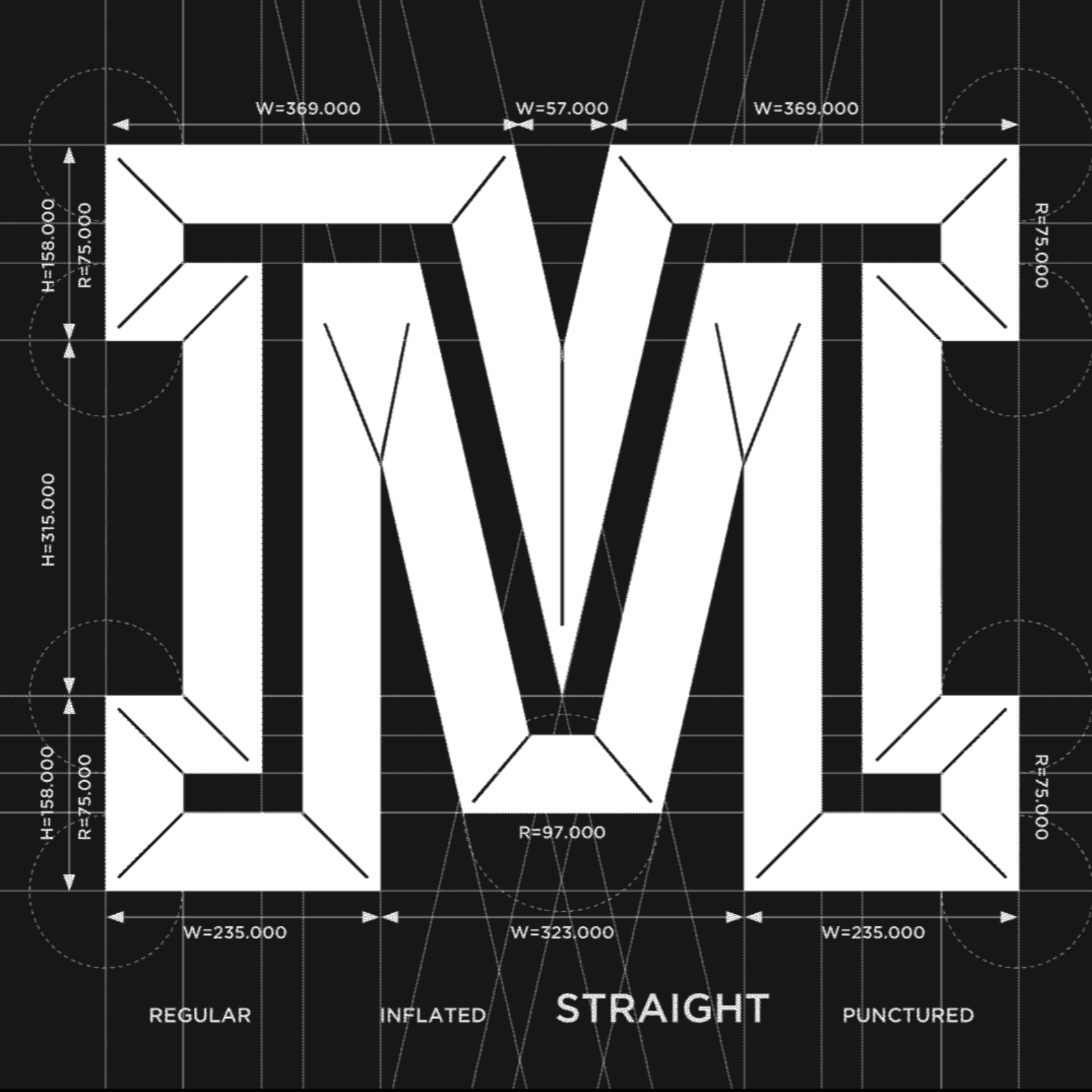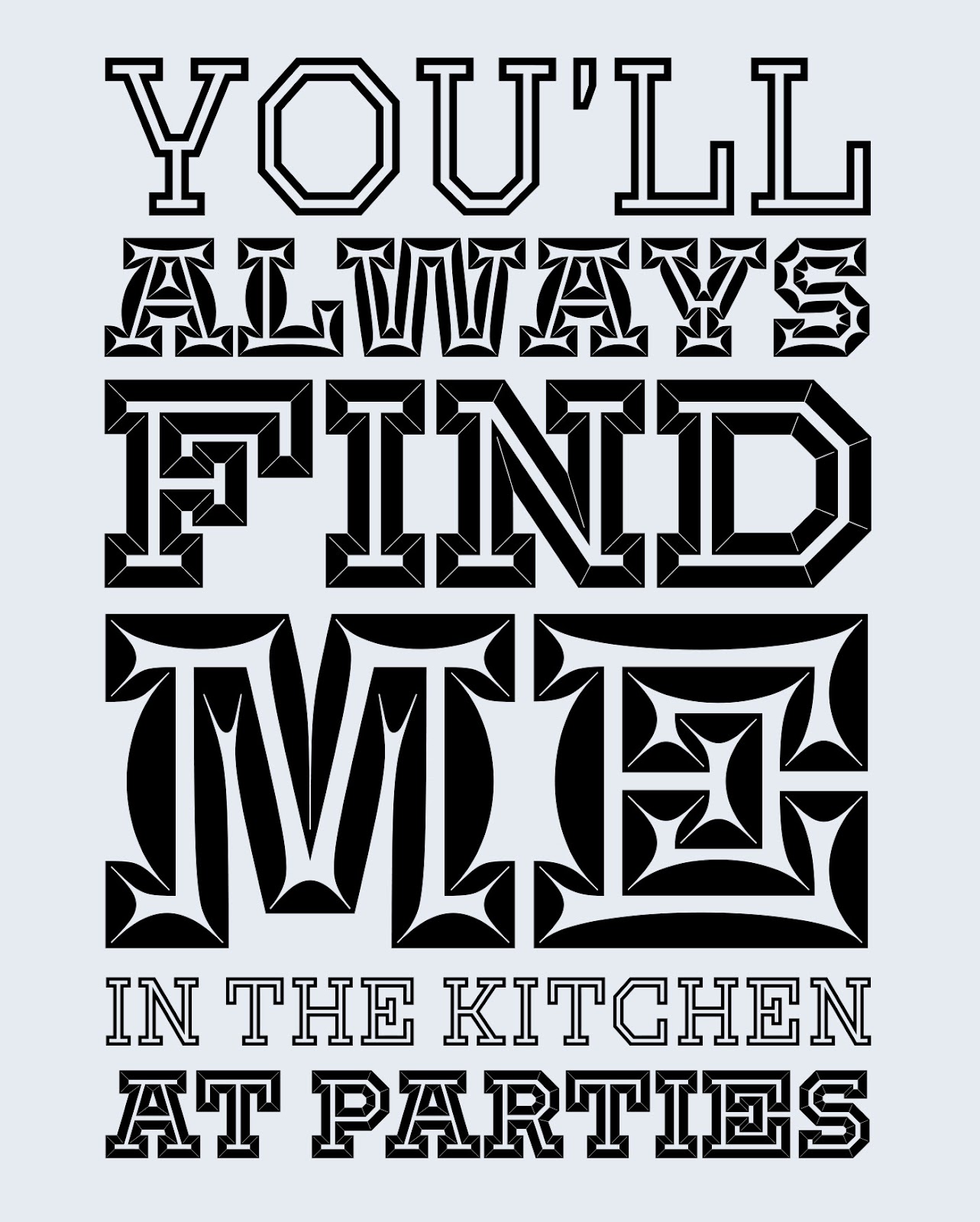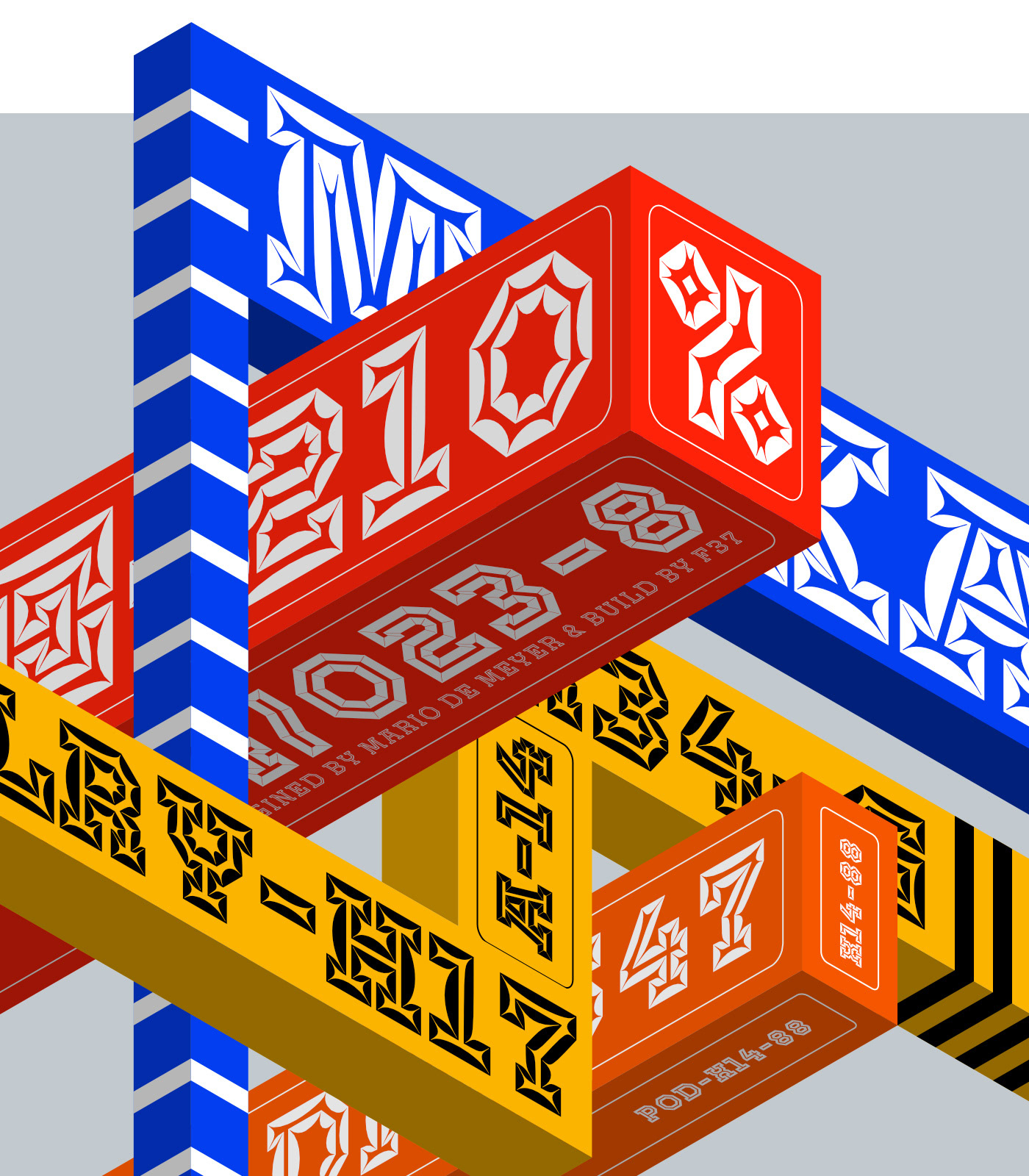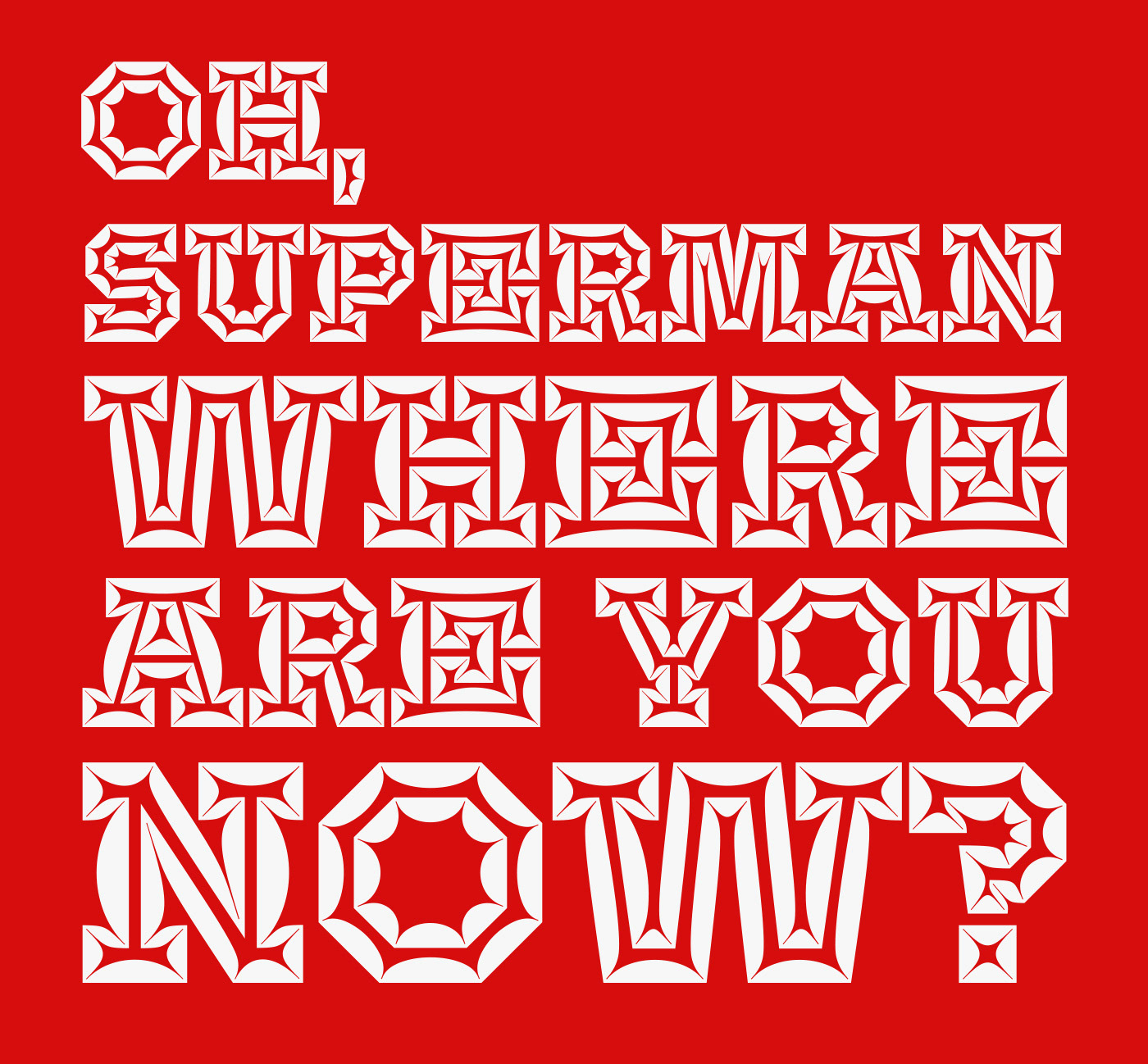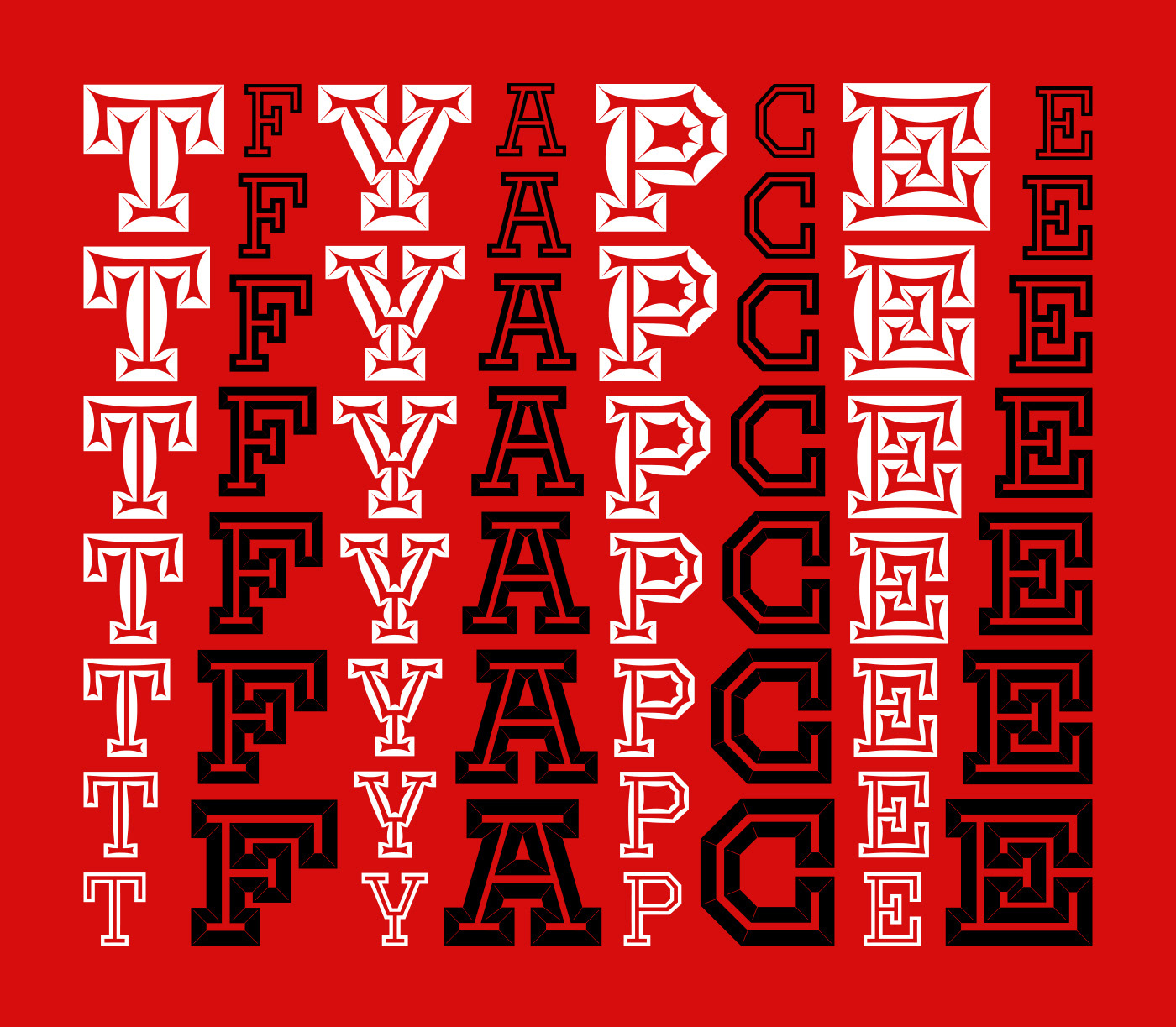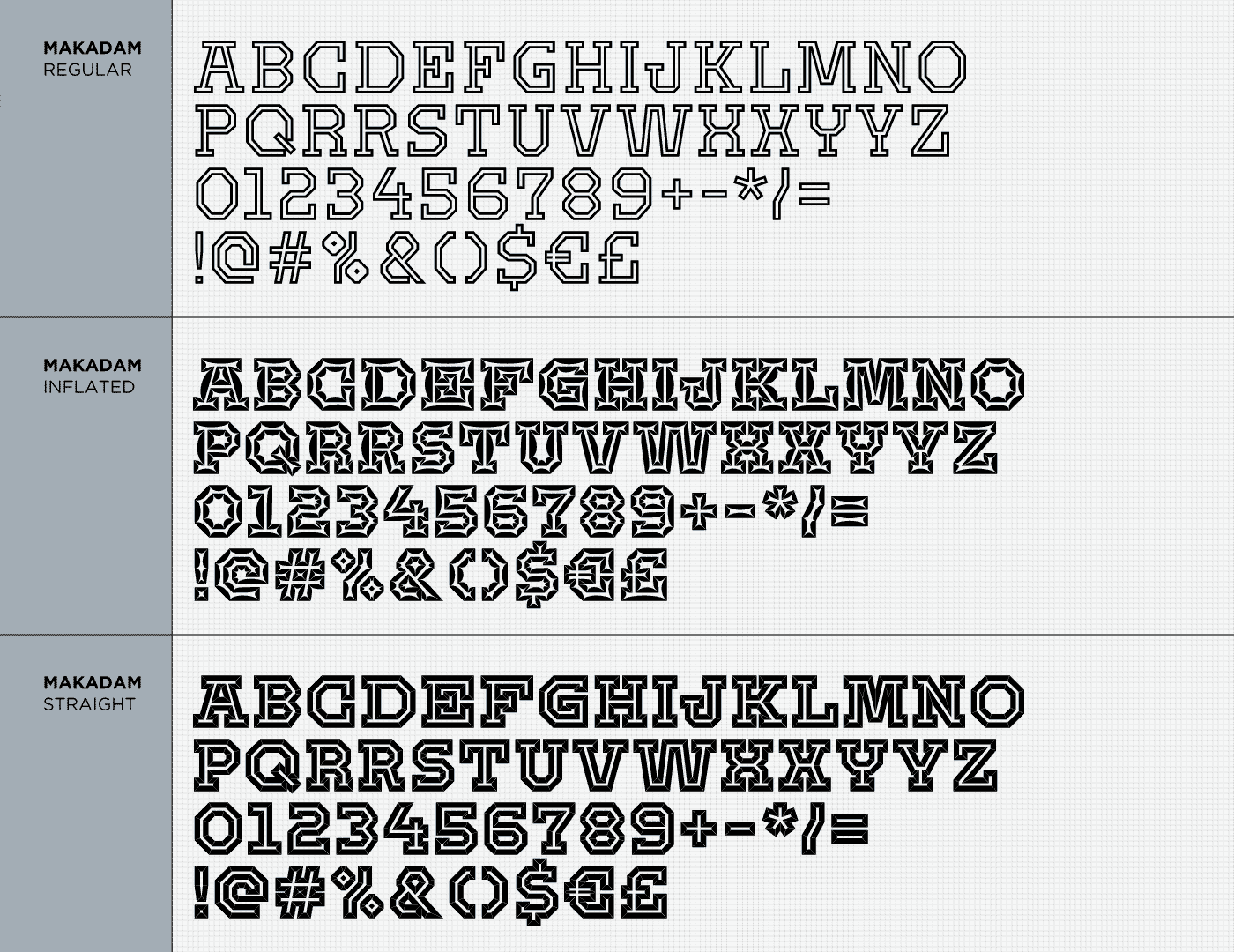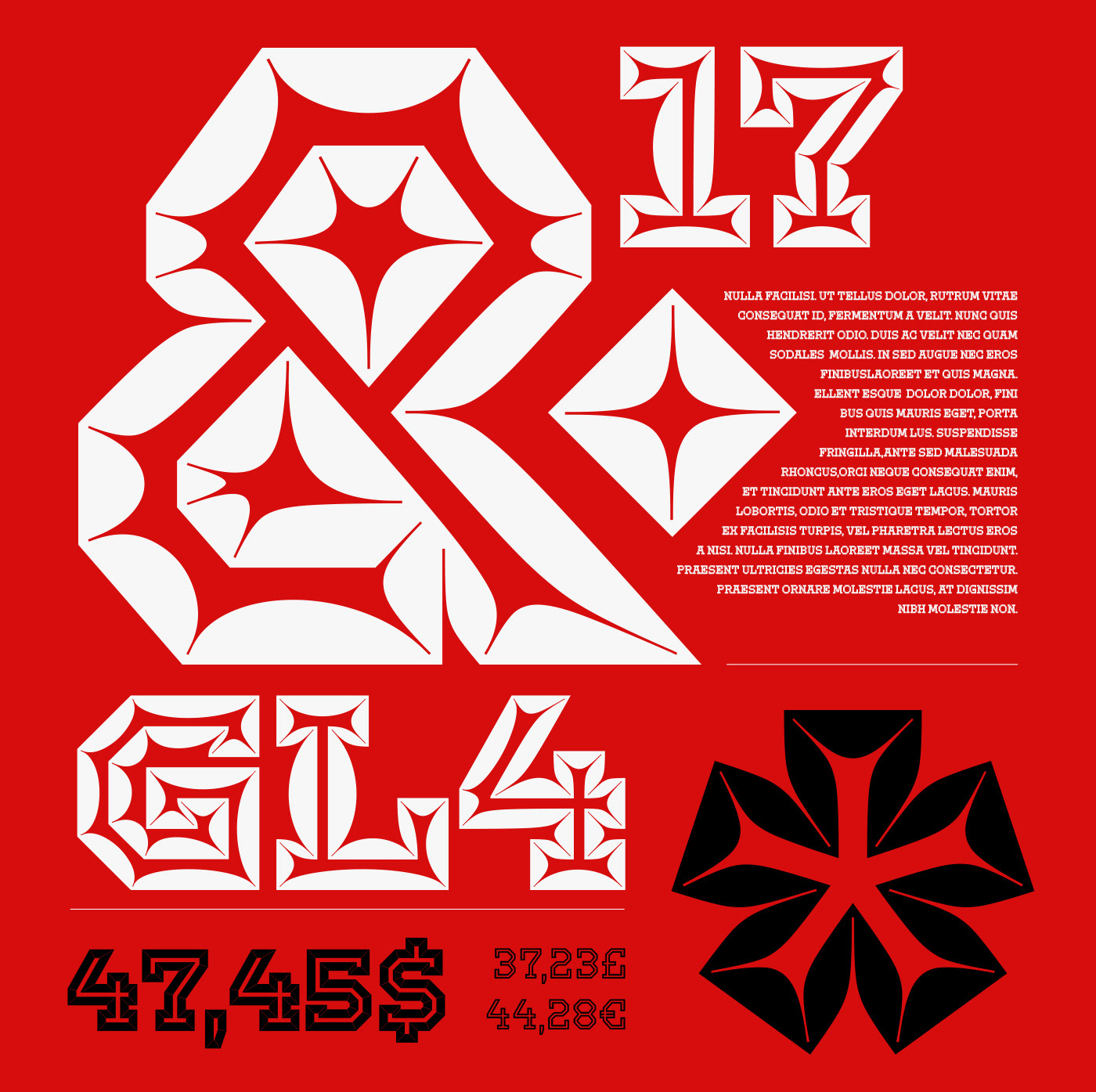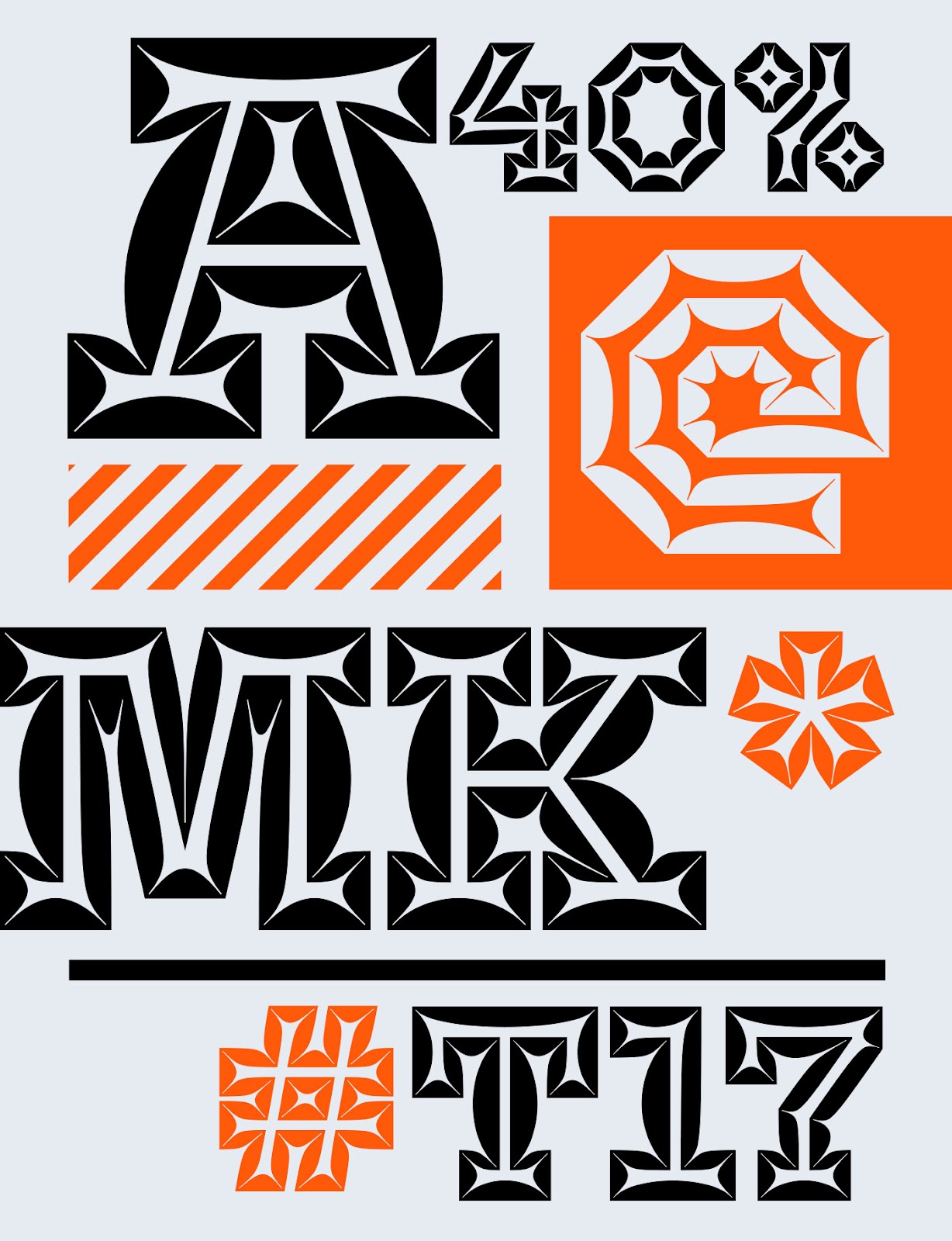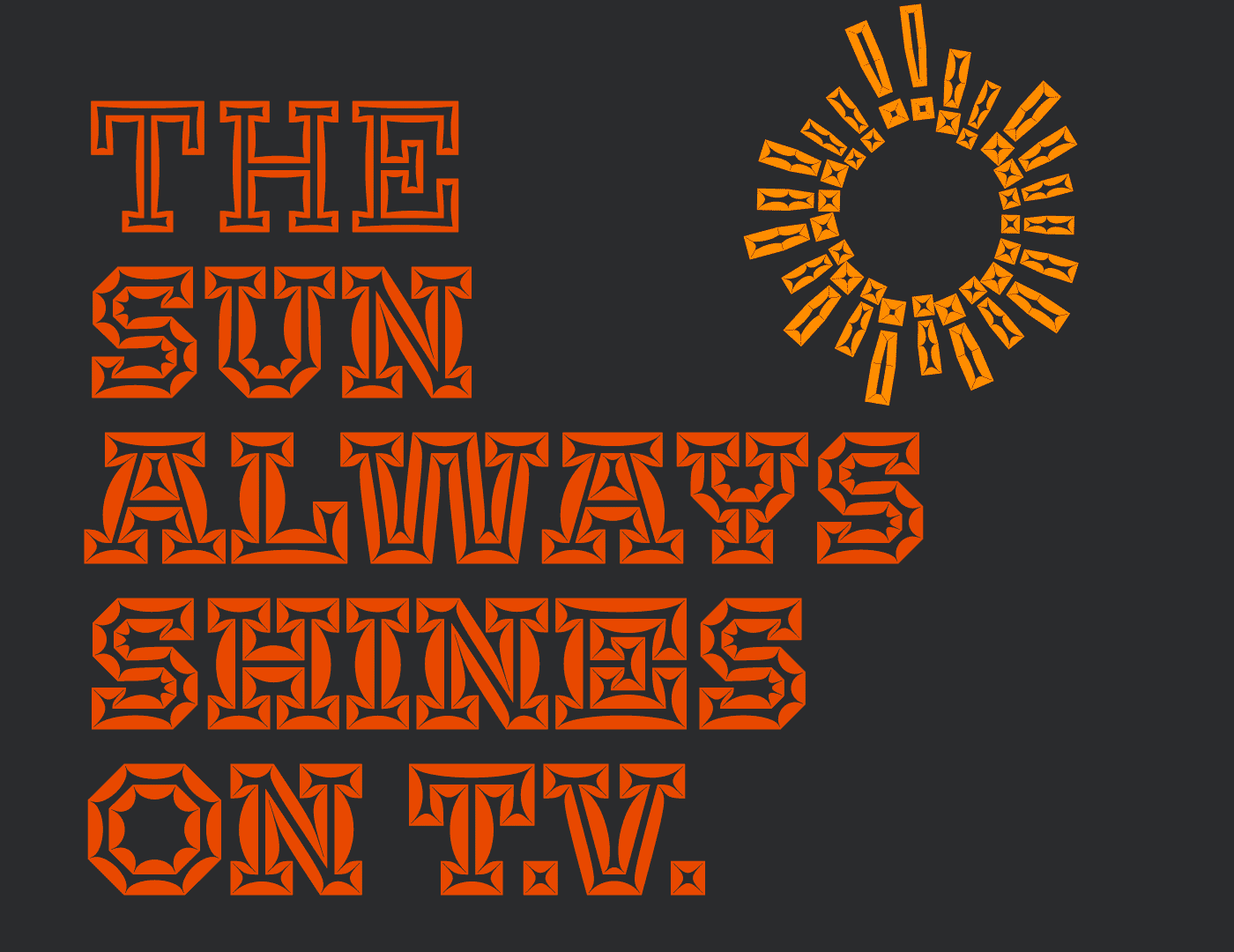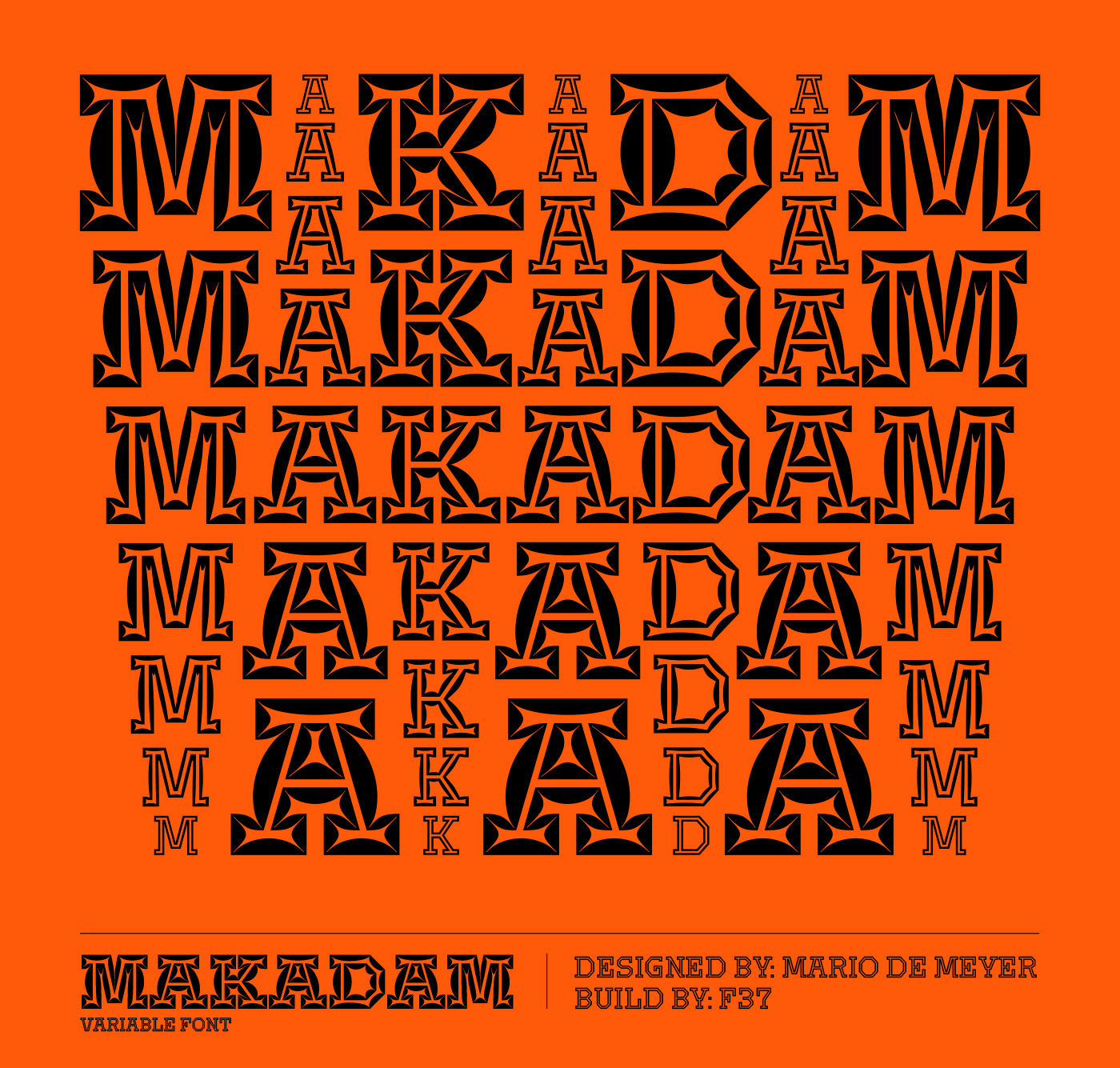
Dive into the world of Makadam, a variable font design with unique weights and effects, designed by Mario De Meyer and F37 Foundry. A leap in typography innovation.
In the dynamic field of typography, the introduction of Makadam by Mario De Meyer, in collaboration with F37 Foundry, marks a notable advancement. This variable font, with its four distinct weights, demonstrates a fascinating blend of design ingenuity and functional adaptability. The project showcases the power of typography to evolve, offering designers unprecedented flexibility and creativity in their work.
Makadam is more than just a font; it's a tool that redefines the boundaries of font design. Its capability to shift between Inflated, Straight, and Punctured modes offers a glimpse into the future of typography, where fonts are not static but fluid elements of design. This versatility allows for a wide range of expressive possibilities, making Makadam a perfect choice for projects that require a high level of customization and dynamic visual appeal.
The collaboration between Mario De Meyer, a renowned designer, and F37 Foundry, an award-winning type foundry, is a testament to the importance of synergy in creating something truly innovative. F37 Foundry brings its expertise in crafting fonts that not only stand out aesthetically but also align perfectly with the branding and identity of businesses. This partnership has resulted in a typeface that is not only beautiful but also meticulously crafted to meet the highest standards of quality and functionality.
Makadam's design process underscores the meticulous attention to detail and a deep understanding of typography's role in design. Each weight has been carefully designed to ensure coherence and versatility across various applications, from digital platforms to print media. The ability to adjust the font's characteristics on the fly opens up new avenues for creative expression, allowing designers to tailor their work to their vision more precisely than ever before.
In conclusion, Makadam represents a significant leap forward in the world of typography. It embodies the convergence of artistic vision and technical mastery, offering a glimpse into the future of font design. For designers and brands alike, Makadam offers an exciting opportunity to explore new creative possibilities and redefine how typography is used in visual communication.